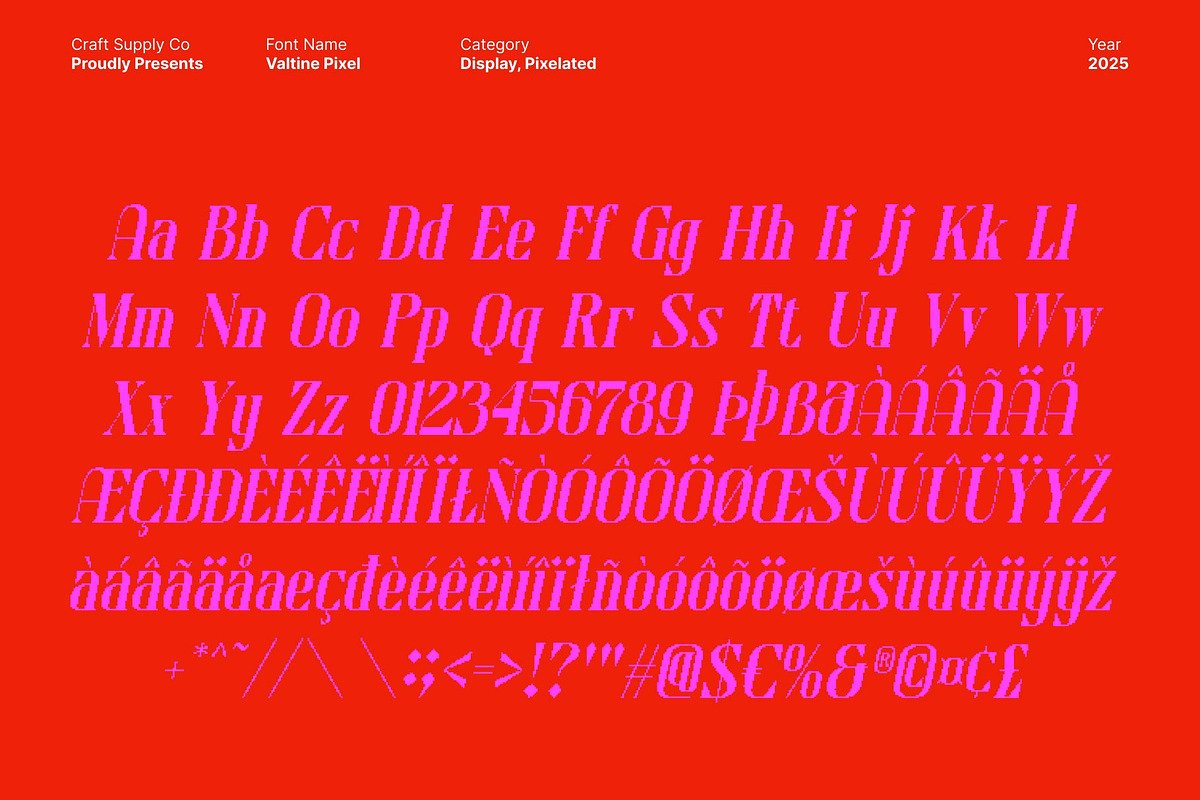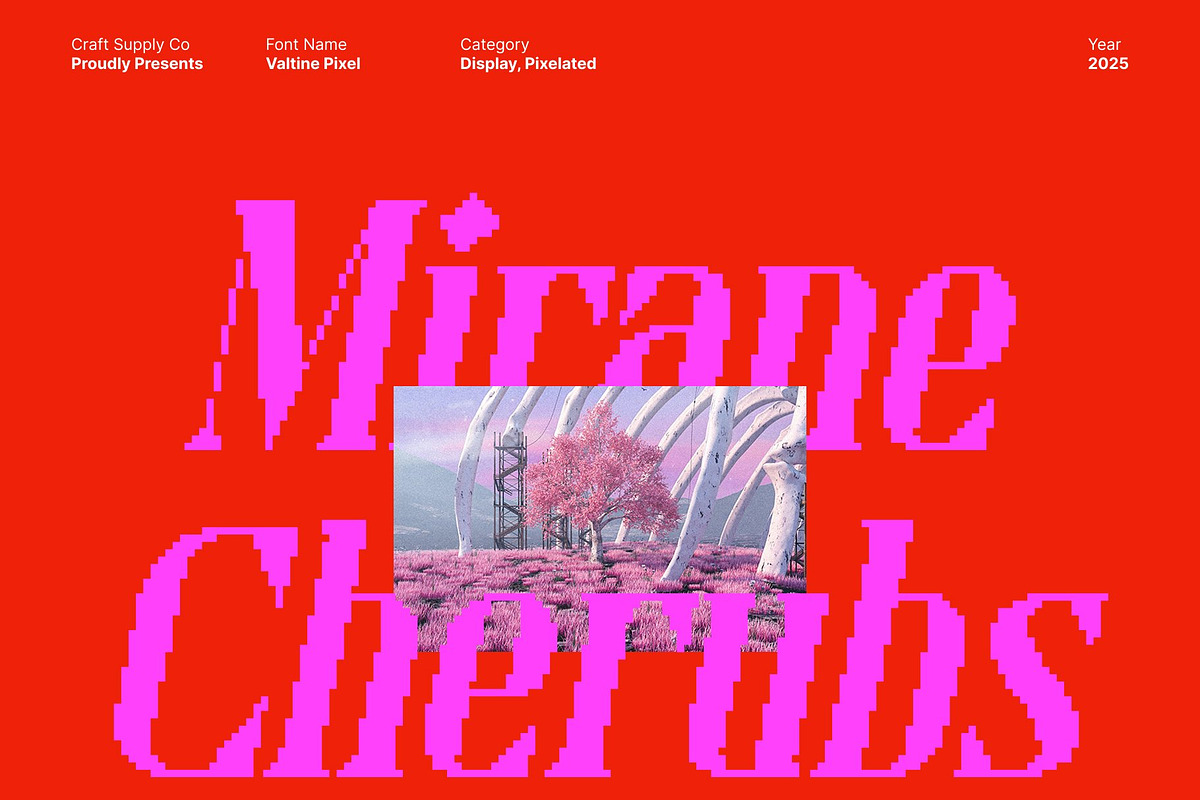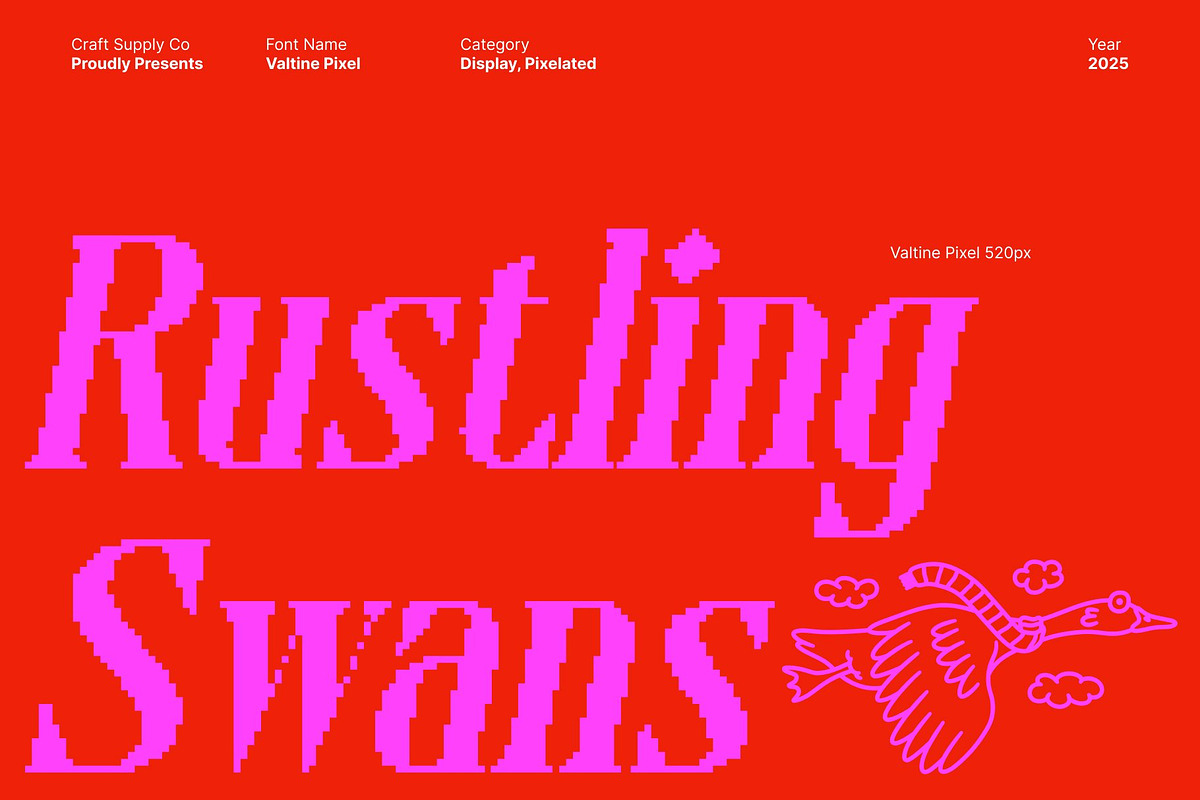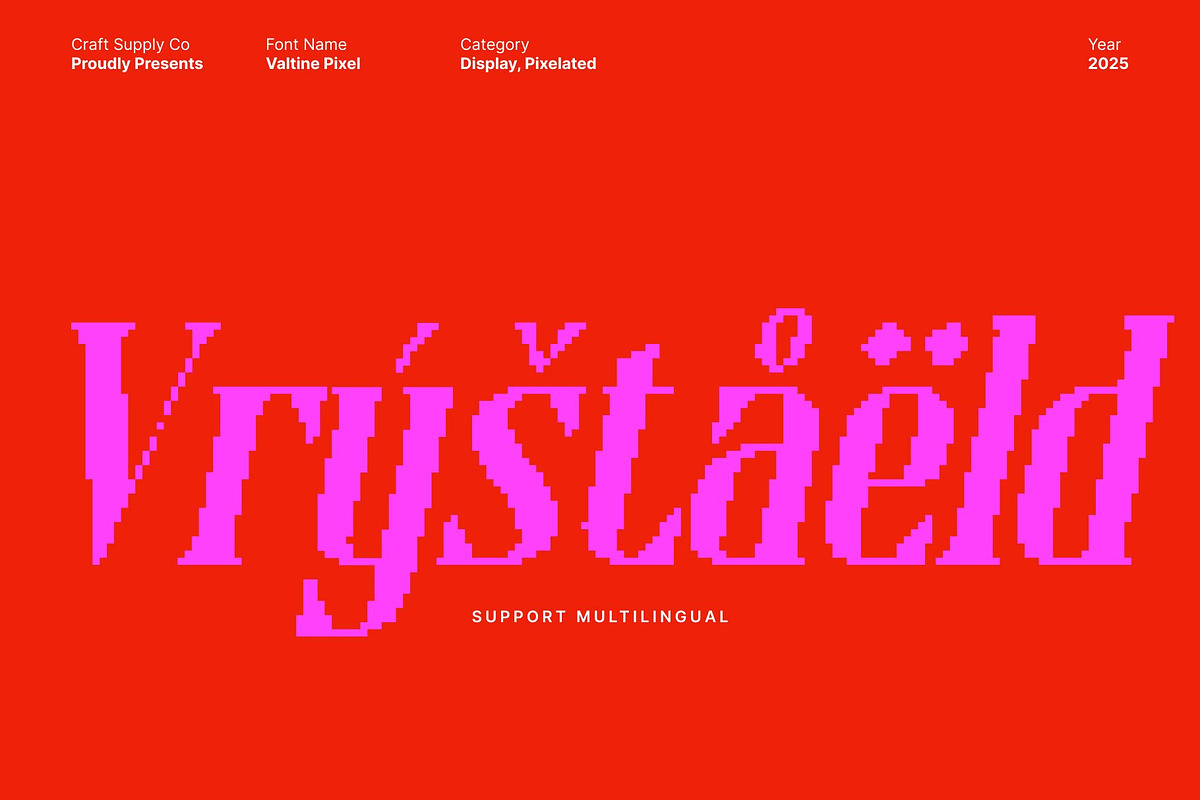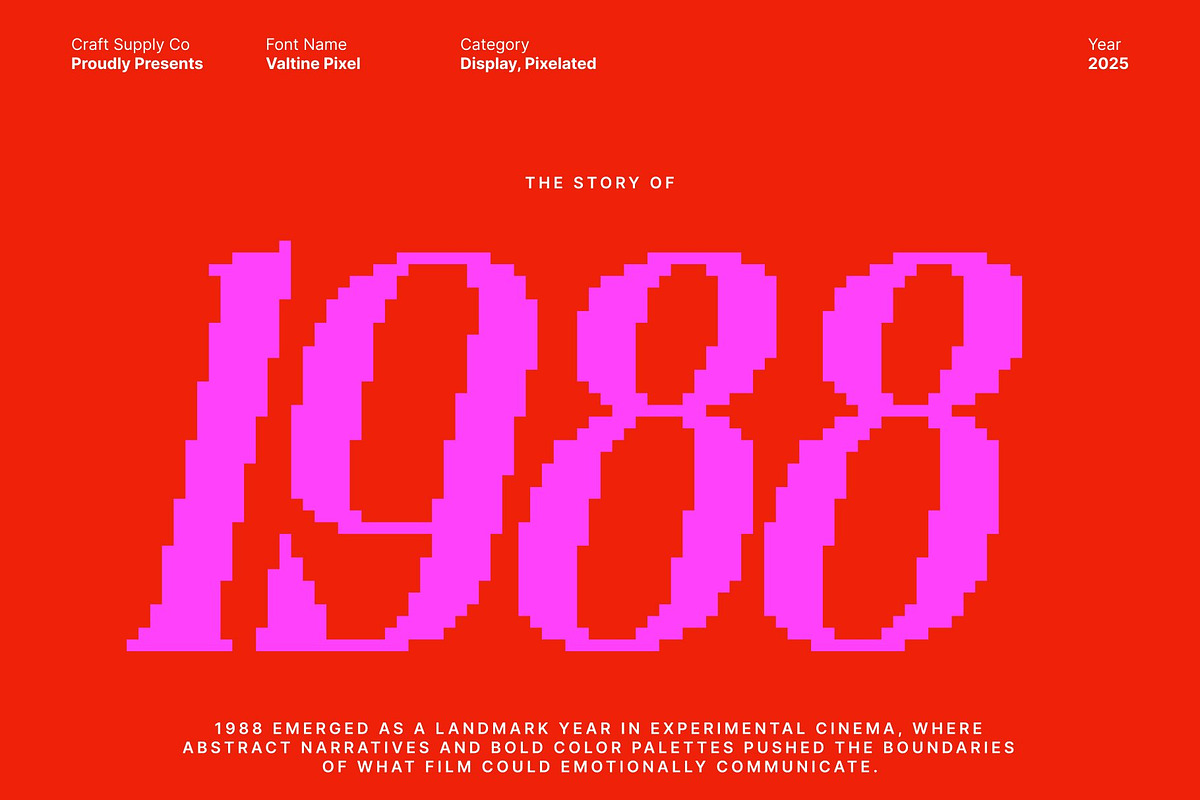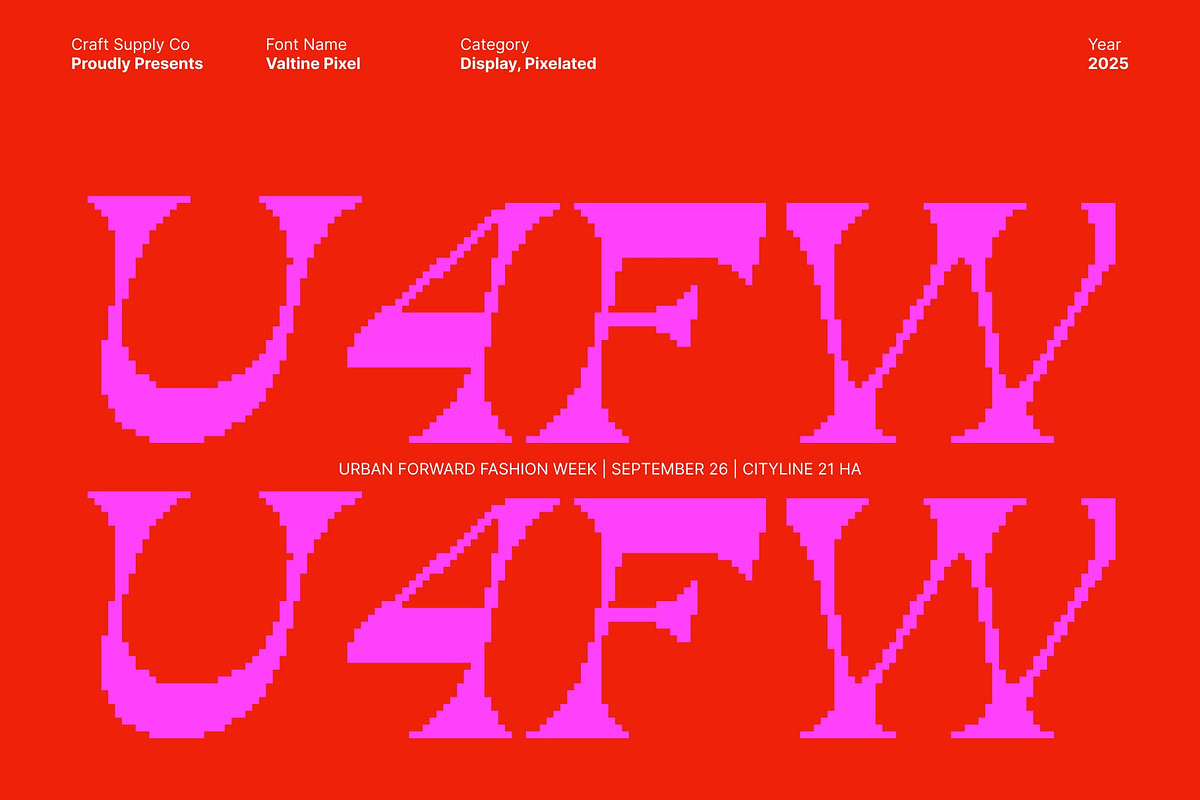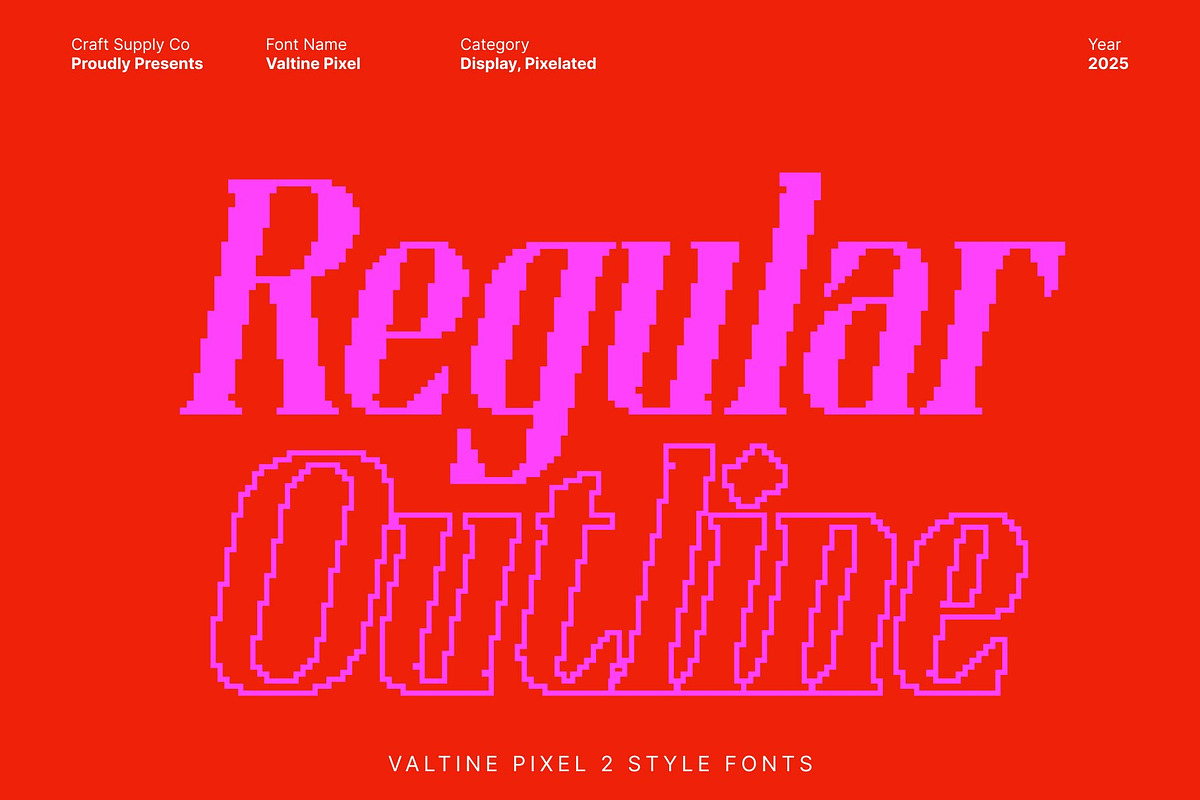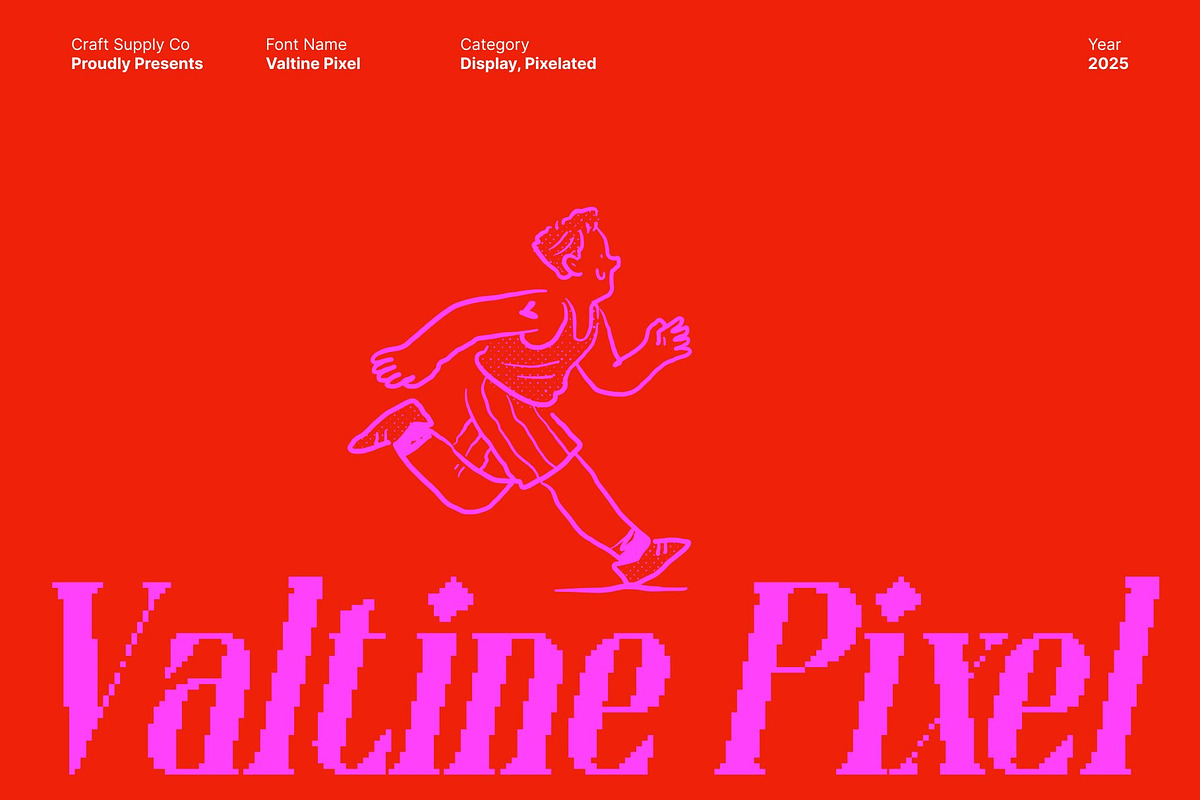
Valtine Pixel
Valtine Pixel – Aesthetic Modern Display with Trendy Pixel Texture
Soft Curves with a Trendy, Fashion-Forward Serif Style This is an aesthetic display font designed to embody modern elegance and youthful charm. Featuring soft curves paired with a trendy serif structure, this typeface delivers a stylish, contemporary appearance that feels right at home in today’s visual culture.
Pixel Texture for a Fresh Digital Edge What sets apart is its unique pixel-textured finish, blending modern serif beauty with digital grit. The pixel effect introduces subtle texture and a touch of retro-digital style, making the font perfect for online designs, creative interfaces, gaming visuals, and digital branding. This striking contrast between softness and pixel sharpness gives a distinctive identity that stands out immediately.
Aesthetic Appeal for Social Media and Creative Branding With its soft curves, stylish structure, and expressive details, brings a high-aesthetic vibe to any layout. It’s ideal for fashion branding, lifestyle posts, quotes, modern posters, product packaging, and editorial layouts. Whether used for bold headlines or playful accent text, it elevates every design with a sense of sophistication and trendiness.
Perfect for Digital-First Creators and Trendy Visual Projects This font is crafted for designers who want a display font that feels modern, artistic, and digitally expressive. Its pixel texture and fashionable serif style make it an excellent choice for branding, social content, digital artwork, and promotional graphics that aim to capture attention and set trends.
- Valtine Pixel Regular
- Valtine Pixel Outline